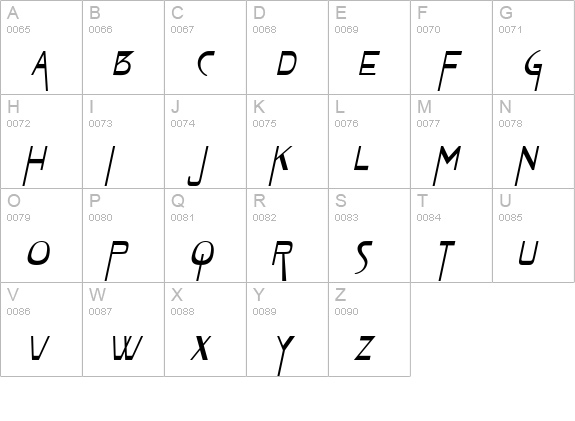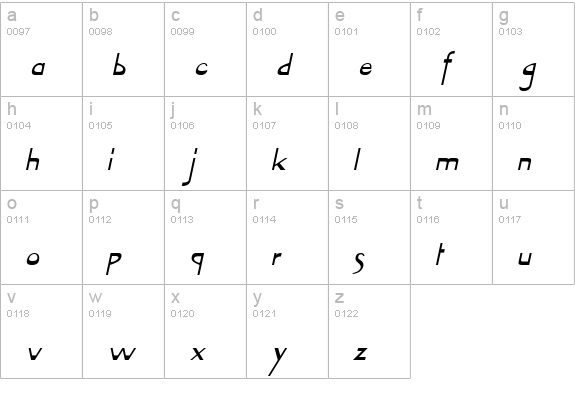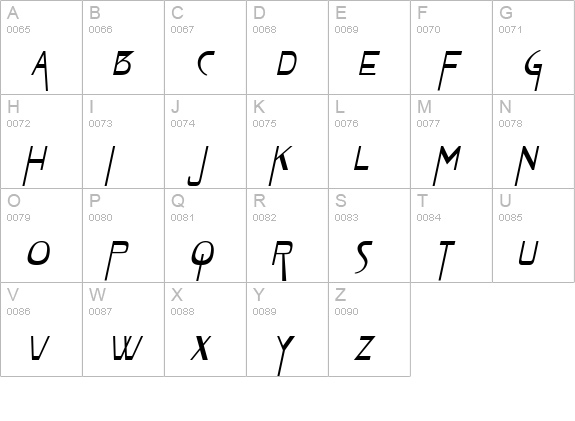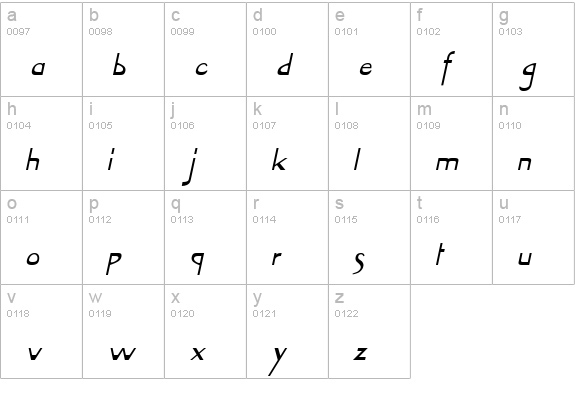
Tablet Italic is a distinctive, italic variant in the Tablet typeface family \xE2\x80\x94 well suited to design and typography projects.
Tablet Italic font is a modern and elegant typeface that exudes sophistication and style. With its sleek and slanted design, this font adds a touch of class to any project or design. The italicized characters create a sense of movement and fluidity, making it perfect for conveying a sense of dynamism and energy. One of the best things about Tablet Italic font is that it is available for free download at FontsMarket.com. This means that you can easily access and use this font without any cost or hassle. Whether you are a graphic designer working on a professional project or a student looking to add some flair to your school assignments, Tablet Italic font is the perfect choice. The versatility of Tablet Italic font is another reason why it is highly recommended. It can be used in a wide range of applications, including logos, branding materials, social media posts, website designs, and much more. Its bold and eye-catching appearance ensures that your message will stand out and make an impact. The clean and crisp lines of Tablet Italic font make it highly legible, even at smaller sizes. This makes it ideal for body text in print materials, such as magazines, brochures, and books. Its readability ensures that your audience will have no trouble reading and understanding your content. Overall, Tablet Italic font is a must-have for anyone looking to add a touch of elegance and sophistication to their designs. Its sleek and slanted design, combined with its versatility and free availability, make it an excellent choice for a wide range of projects. Don't miss the opportunity to download this font for free at FontsMarket.com and elevate your designs to a whole new level.